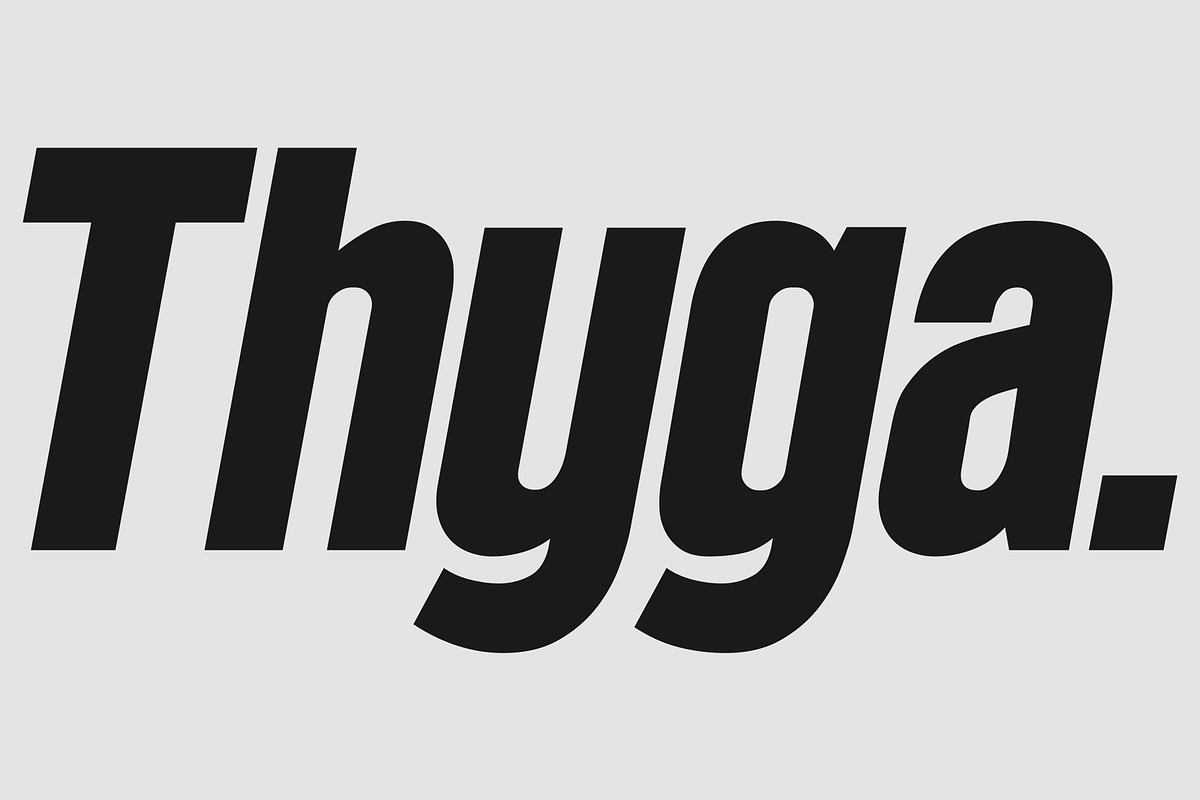
Thyga Font Free Download is a sleek, modern sans serif typeface designed to provide a clean, minimalistic feel with a touch of elegance. With its straight lines, geometric structure, and highly readable design, Thyga is perfect for a wide range of design applications, including branding, editorial layouts, websites, posters, and more.
The font features uppercase and lowercase letters, numerals, punctuation, and stylistic alternates, giving you the flexibility to create versatile and contemporary typographic compositions. Its streamlined, minimalist aesthetic makes it ideal for both professional and creative projects.
Whether you're working on a modern brand identity, creating a professional website, or designing a minimalist editorial layout, Thyga Font Free Download offers a sophisticated, modern touch to your typography. Feel free to test it out in personal or mockup projects, and be sure to secure the appropriate license for any commercial use. Add sleek elegance to your designs with this modern sans serif font.